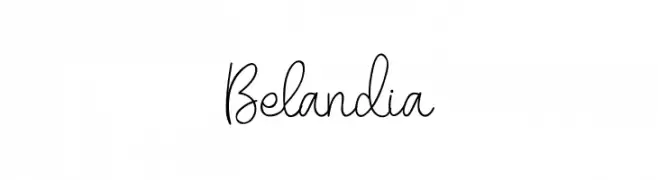
A delicate, flowing script font with elegant cursive letterforms.
An elegant, flowing script font with delicate, continuous strokes.
A graceful script font with flowing, delicate strokes.
A delicate monoline script font with elegant, flowing cursive letterforms.
A delicate and elegant script font with flowing, thin strokes.
A delicate, flowing script font with elegant, elongated letterforms.
A delicate and flowing script font with elegant, thin strokes.
A delicate and flowing script font with elegant, cursive letterforms.
A delicate, flowing script font with elegant, cursive characteristics.
A delicate, elegant script font with thin, flowing lines and a handwritten appearance.